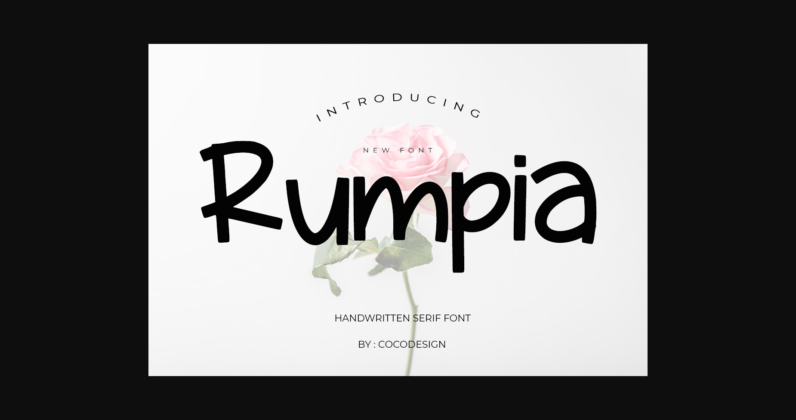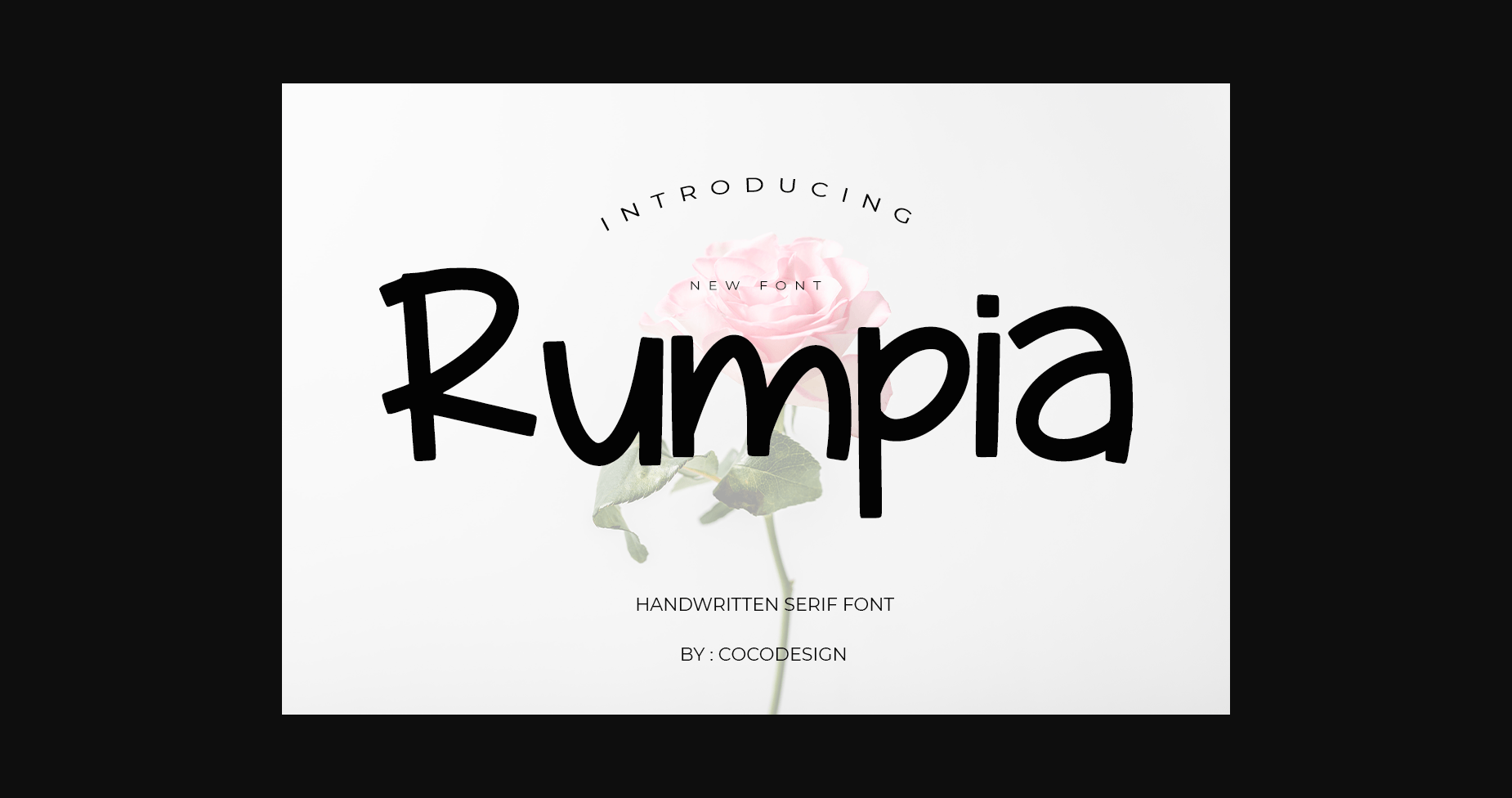
About Rumpia Font
Rumpia hand-drawn sans serif font. This font can be used for various purposes such as logos, product packaging, wedding invitations, branding, headlines, signage, labels, signatures, book covers, posters, quotes, and more.